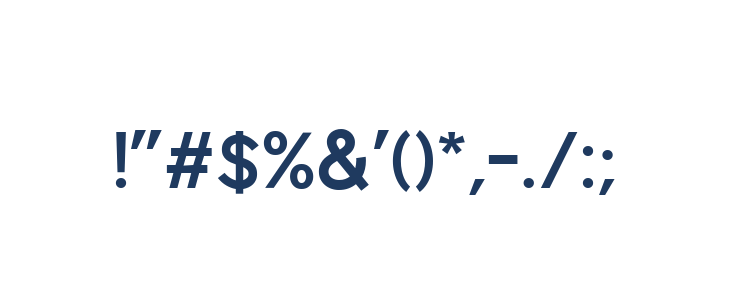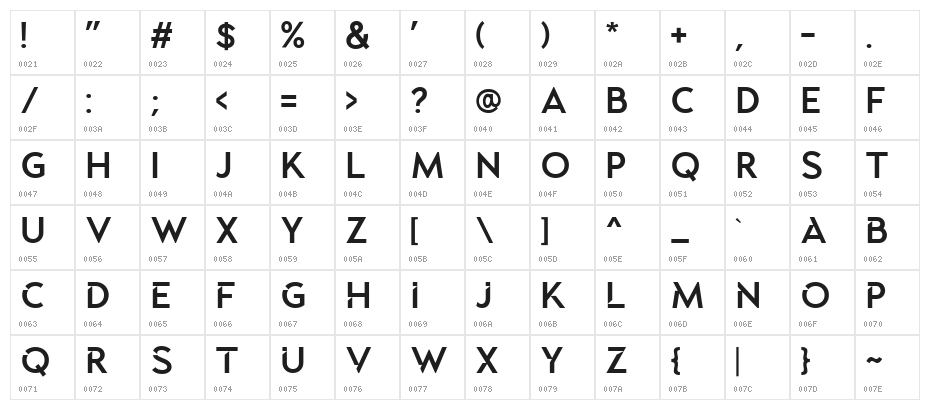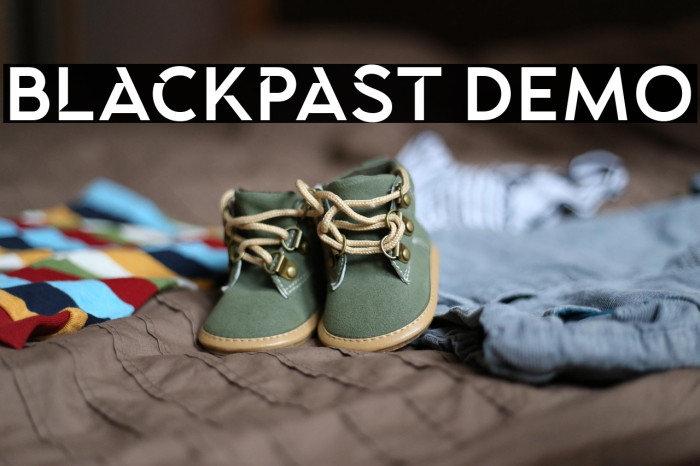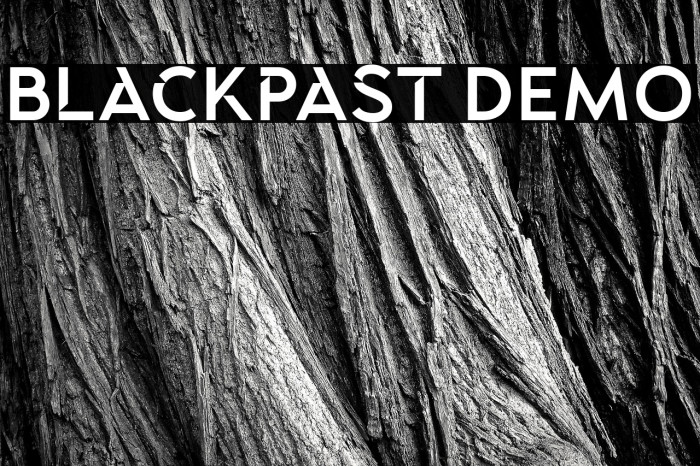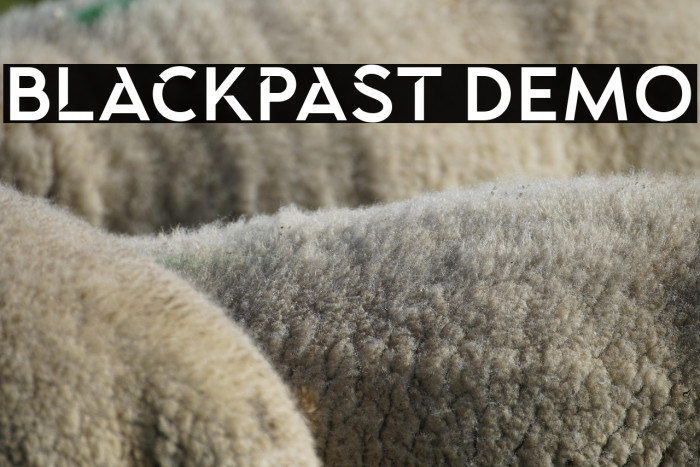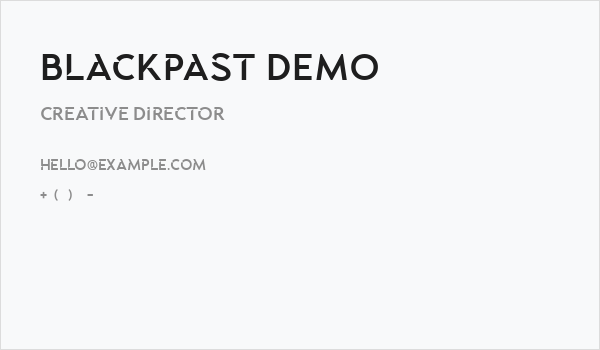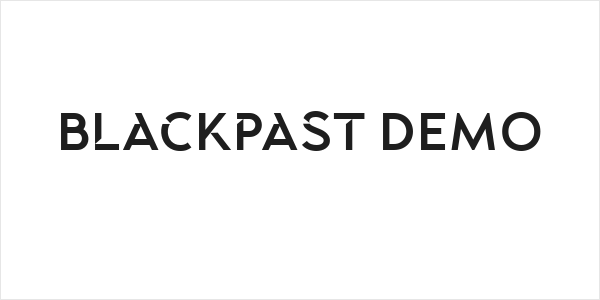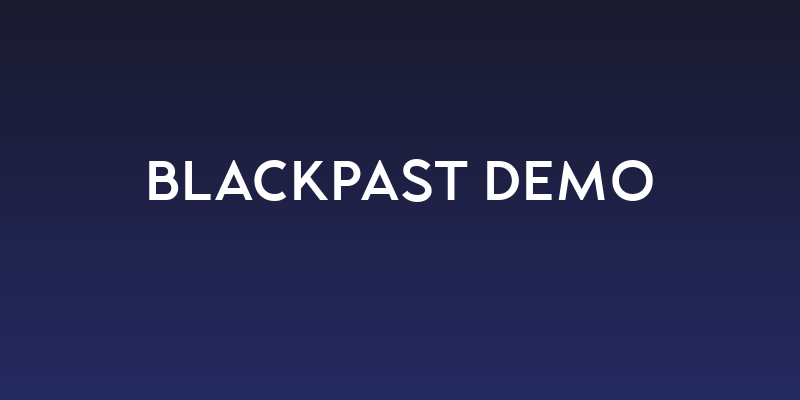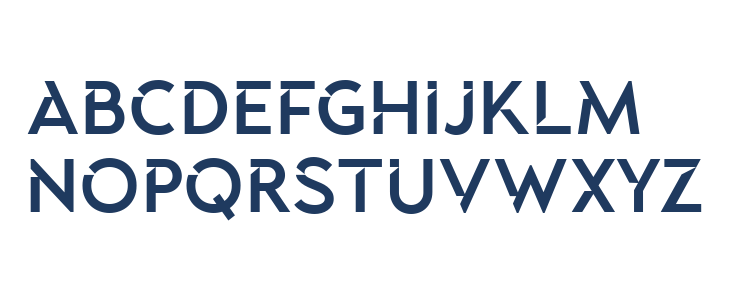
Blackpast DEMO Font
Blackpast DEMO Description
This font features a bold and modern sans-serif style with clean, geometric lines. The characters are uniform in width, providing a balanced and structured appearance. The uppercase letters are strong and assertive, while the lowercase letters maintain a consistent height, contributing to the font's overall harmony. The numerals are clear and easily distinguishable, making them suitable for various applications. Special characters are well-integrated, maintaining the font's cohesive look. The design is versatile, suitable for both digital and print media, and can be used in a variety of contexts where clarity and impact are essential.